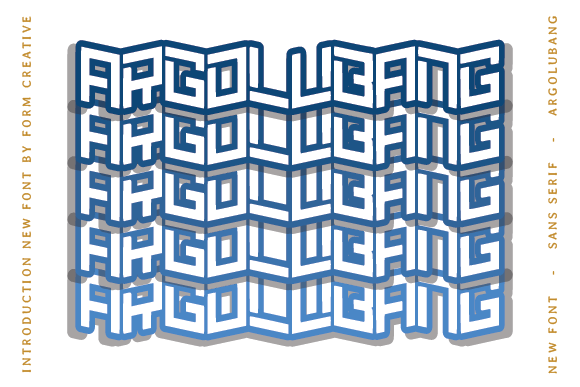
**Introducing Argolubang: The Font That Fuels Your Artistic Expression**
Embark on a typographic adventure with Argolubang, a sans-serif font that unleashes your creativity. Its bold and striking presence captivates, while its stylish curves ignite your imagination.
With Argolubang at your fingertips, your art websites transform into masterpieces. Design posters that resonate with depth and impact. Craft quotes that dance before the eyes, leaving an unforgettable mark. Elevate branding with a touch of sophistication and flair.
Argolubang empowers you to:
- Ignite your inner artist with its captivating style
- Make a bold statement with its powerful presence
- Inspire and connect with its unique design